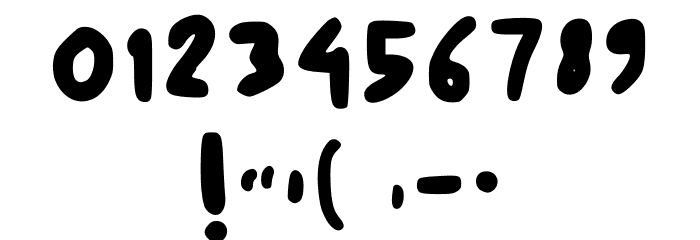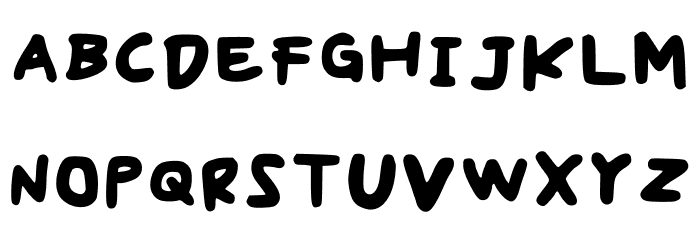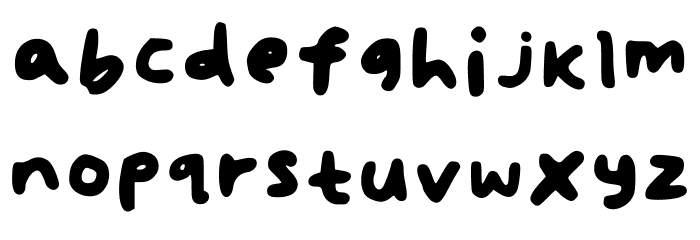
Ewindri Regular Font
Ewindri Regular Description
This font exhibits a playful and informal style, characterized by its rounded and slightly irregular letterforms. The strokes are bold and consistent, giving it a hand-drawn appearance that adds a personal touch. The letters are well-spaced, ensuring readability while maintaining a casual vibe. The font includes a full set of uppercase and lowercase letters, numbers, and a selection of special characters, making it versatile for various design needs. Its unique style is suitable for projects that require a friendly and approachable aesthetic.
| Proposed Projects | Ideal for children's books, casual branding, greeting cards, and playful social media graphics. |